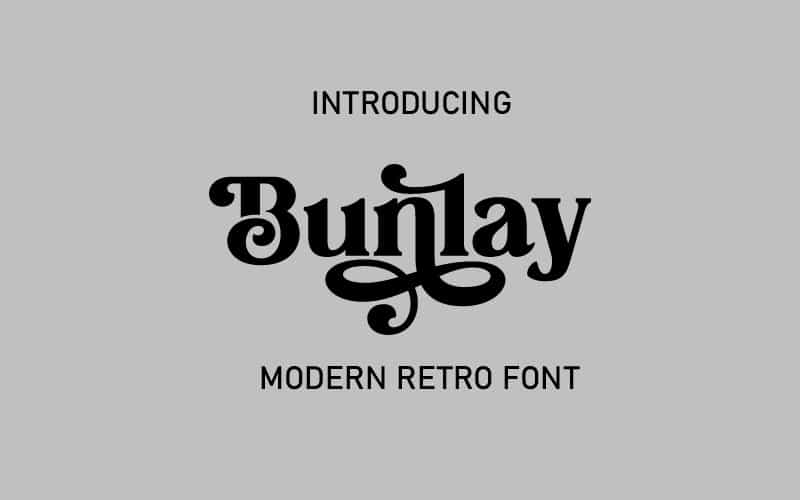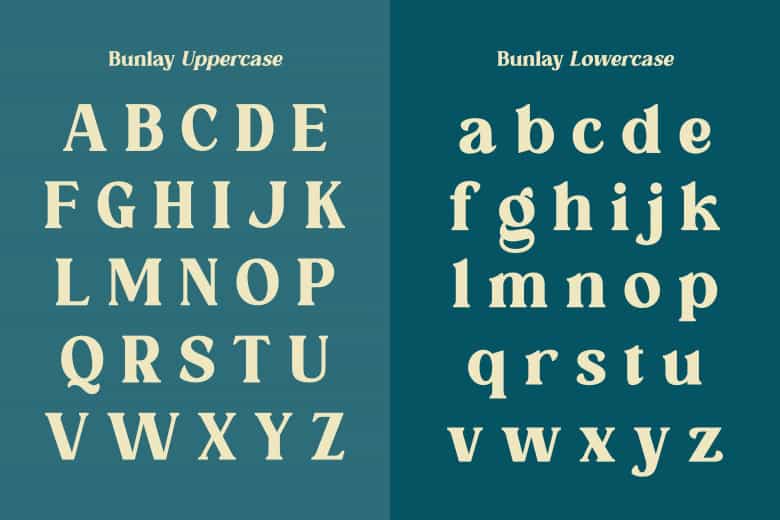
Bunlay Font
Bunlay font is designed with a light-hearted nostalgia. The font, which is printed with a reversed oblique stroke, gives any design project its own personality and vintage atmosphere. With this serif typeface, any design concept you come up with can be given a sense of which combines the best parts of today and yesteryear!